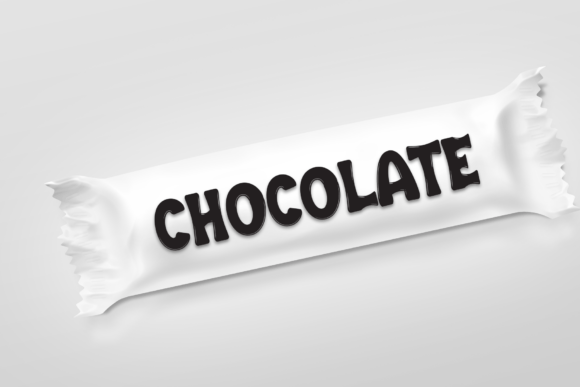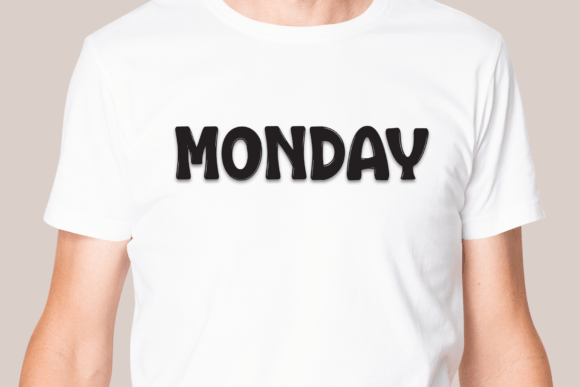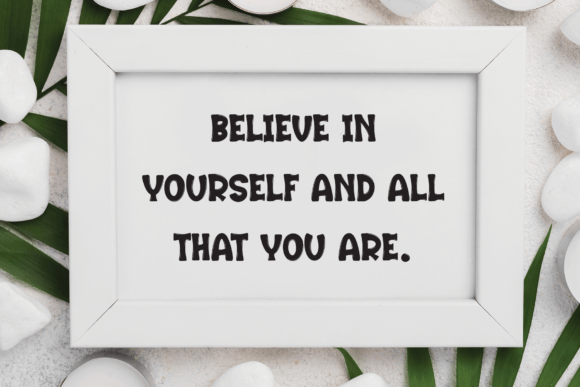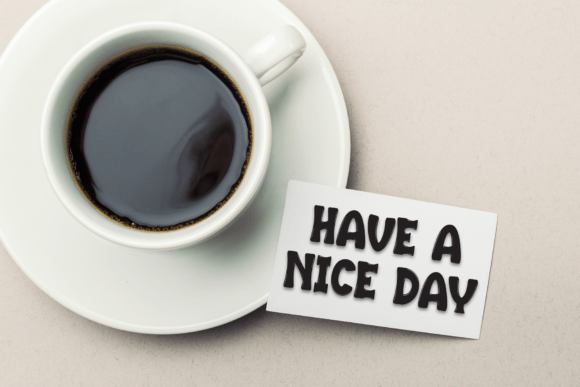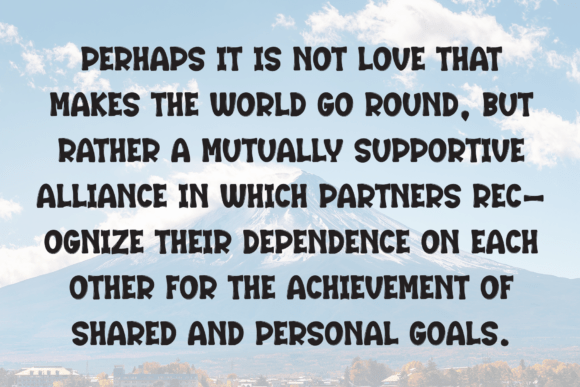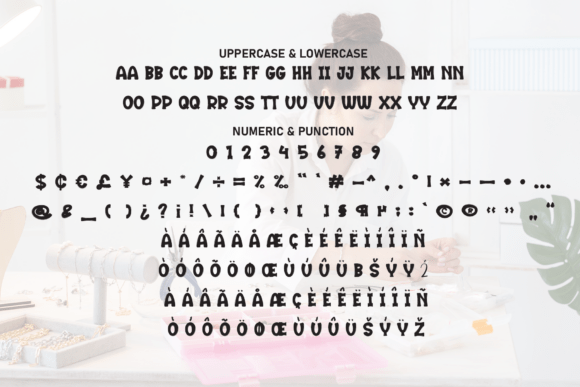
The Designer Handmade Font: A Perfect Blend of Modern Simplicity and Playful Charm
I still remember the time I was working on a project for a client who wanted a font that was both modern and approachable. I had spent hours browsing through font libraries, but nothing seemed to fit the bill. That was when I stumbled upon the Designer Handmade font. Its clean shapes, soft edges, and well-balanced letterforms immediately caught my attention. I knew right then and there that I had found the perfect font for my project.
The Designer Handmade font is a casual display font that blends modern simplicity with a playful, approachable vibe. It’s ideal for posters, branding, packaging, and social media graphics, adding a fresh and friendly touch to any project.
- ✨ Clean and simple design: The font’s clean shapes and soft edges make it easy to read and visually appealing.
- ✅ Versatile character: The font has a versatile character that suits a wide range of design projects.
- 💡 Eye-catching appeal: The font’s unique blend of modern simplicity and playful charm makes it stand out from other fonts.
- 📝 Well-balanced letterforms: The font’s letterforms are well-balanced, making it easy to read and understand.
While the Designer Handmade font is an excellent choice for many design projects, there are a few quirks to be aware of:
- 🤔 Limited use in formal contexts: The font’s playful and casual nature makes it less suitable for formal contexts, such as academic or business documents.
- ⚠️ Not ideal for body text: The font is best used for headings and titles, as it may not be as readable in body text.
The Designer Handmade font comes with a range of OpenType features and glyphs that can enhance your design. Here are a few examples:
- Stylistic alternates: The font offers stylistic alternates that allow you to customize the look of your text.
- Glyphs: The font includes a range of glyphs that can be used to add visual interest to your design.
The Backstory of Designer Handmade
The Designer Handmade font was created by a team of designers who wanted to create a font that was both modern and approachable. The team drew inspiration from a range of sources, including handwriting, calligraphy, and digital design. The result is a font that’s both fresh and friendly, with a unique blend of simplicity and charm.
Q: What is the Designer Handmade font?
A: The Designer Handmade font is a casual display font that blends modern simplicity with a playful, approachable vibe.
Q: What is the Designer Handmade font best used for?
A: The Designer Handmade font is ideal for posters, branding, packaging, and social media graphics.
Q: Is the Designer Handmade font easy to read?
A: Yes, the Designer Handmade font is designed to be easy to read, with clean shapes and well-balanced letterforms.